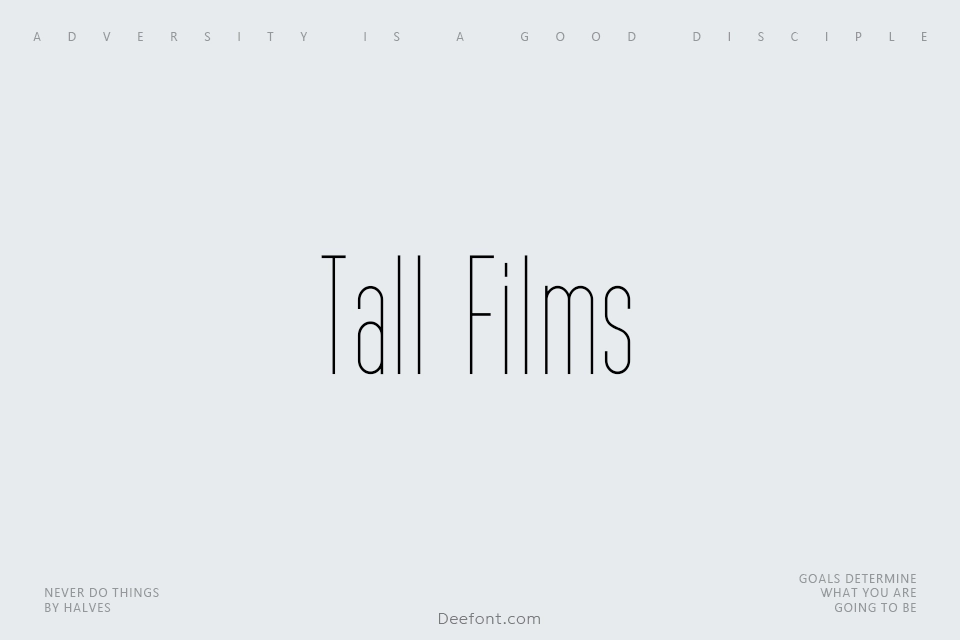
Tall Films Font Family
Tall Films is a sleek, modern sans-serif typeface featuring tall, elongated characters with consistent thin strokes. Designed for contemporary applications, this versatile font combines minimalist aesthetics with sophisticated proportions, making it ideal for movie posters, fashion magazines, branding materials, and modern web design. The narrow width and light weight create a distinctive visual impact for headlines and logos, while maintaining excellent legibility across diverse creative projects.
Designed by:Graham Meade